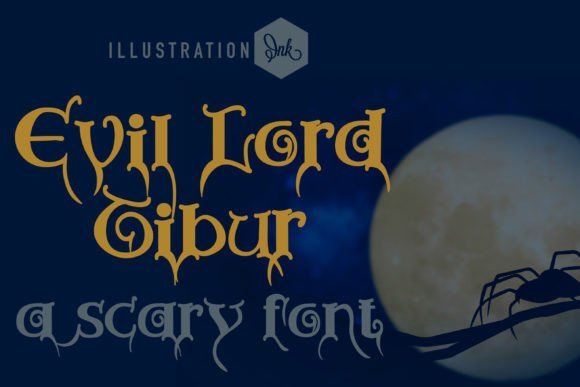
The Dark Allure of Hand-Crafted Fonts
As I sat in my design studio, surrounded by scraps of paper and empty coffee cups, I was struck by the eerie feeling that Evil Lord Tibur Font was watching me. It was as if the old-school German-influenced haunted font had come to life, its bold and condensed versions whispering sinister tales of the past. Suddenly, the blank page in front of me was no longer empty – it was a canvas waiting for the brushstrokes of creativity.
Evil Lord Tibur Font is a hand-crafted font designed to evoke the feeling of being written by hand, but with a dark twist. Its unique blend of old-world charm and haunting atmosphere makes it perfect for designers looking to add a touch of mystery to their projects. Whether you’re creating invitations, greeting cards, or any other design that requires a touch of the macabre, Evil Lord Tibur Font is sure to deliver.
Evil Lord Tibur Font Key Features
- Unique Characteristics: Evil Lord Tibur Font features a unique, horror-inspired design with intricate details and a distressed look.
- Style: The font comes in a single style with a bold and menacing feel, making it ideal for horror-themed projects and designs.
Evil Lord Tibur Font Review
Overall, I was quite intrigued by the Evil Lord Tibur Font when I first laid eyes on it. Here are some points that caught my attention:
- ✨ Unique and creative design: The font has a quirky, hand-drawn feel that’s sure to grab attention.
- ✨ Versatility: Evil Lord Tibur can be used for a variety of purposes, from headings to body text, and even for creating logos.
- ✨ Good for creative projects: This font is perfect for those who want to add a touch of playfulness and humor to their designs.
However, there are a few limitations that might affect its usability:
- ⚠️ Limited legibility at smaller sizes: The font’s unique design can make it difficult to read at smaller font sizes.
- ⚠️ May not be suitable for formal designs: While Evil Lord Tibur is great for creative projects, it may not be the best choice for formal or professional designs.
Overall, I think Evil Lord Tibur is a fun and creative font that’s perfect for those who want to add a bit of whimsy to their designs. While it may have some limitations, it’s still a great addition to any designer’s toolkit.
Evil Lord Tibur Font is ideal for creating bold, eye-catching titles and headings.
Use it to add a touch of darkness and mystery to your designs.
Some common use cases include:
1. Horror-themed posters and flyers.
2. Dark fantasy book covers.
3. Creepy website headers.